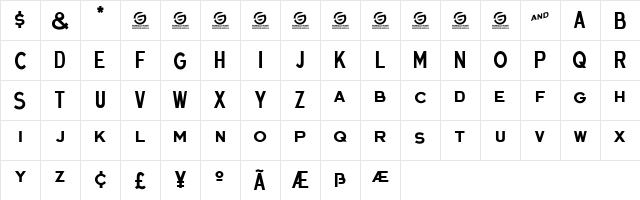
Gin and Soda Personal Use Regular
| Foundry | Mathias Guaraldo |
| Designer | Mathias Guaraldo |
Design Context for Gin and Soda Personal Use Typeface
Gin and Soda Personal Use is a composed and adaptable typeface that performs quietly and consistently across a wide range of design contexts.